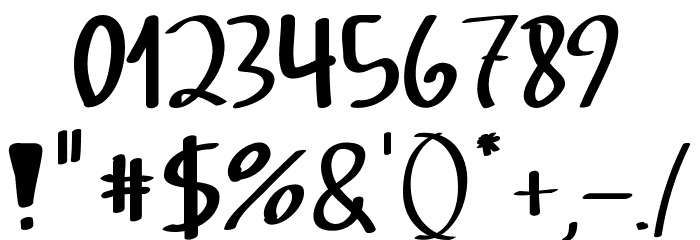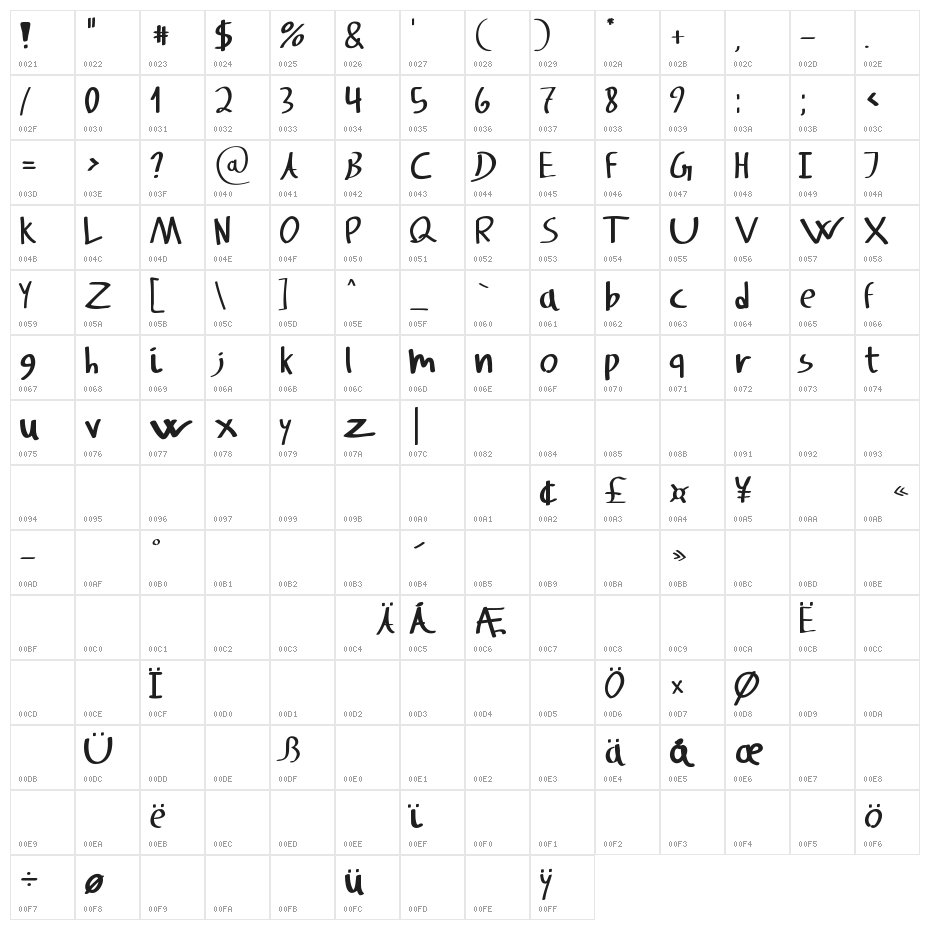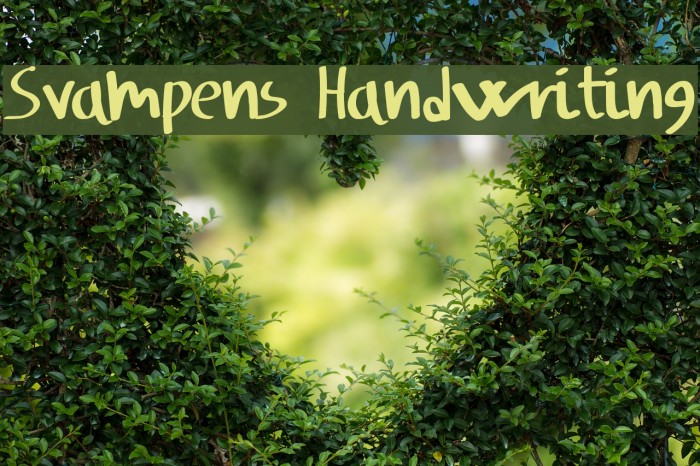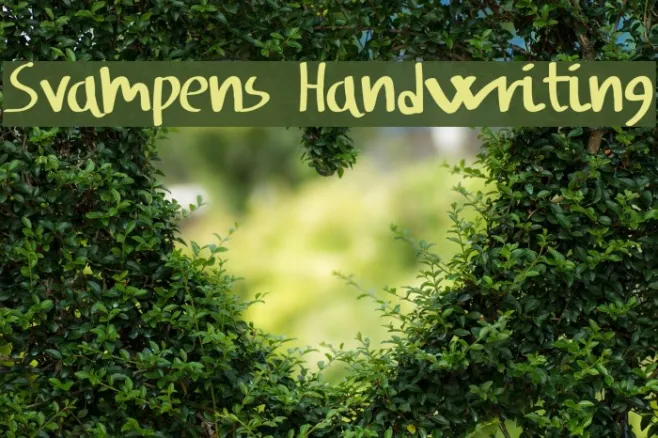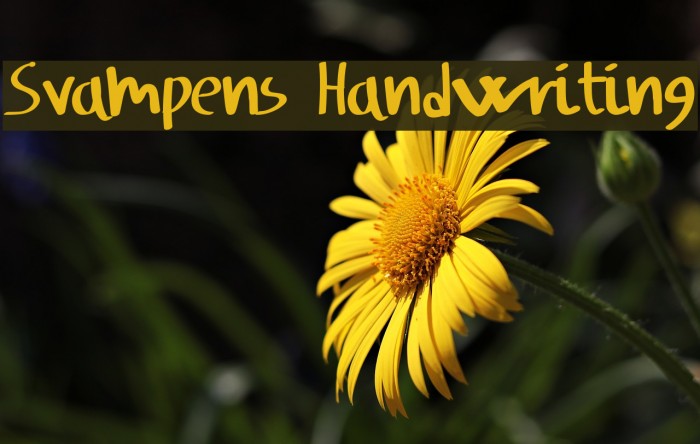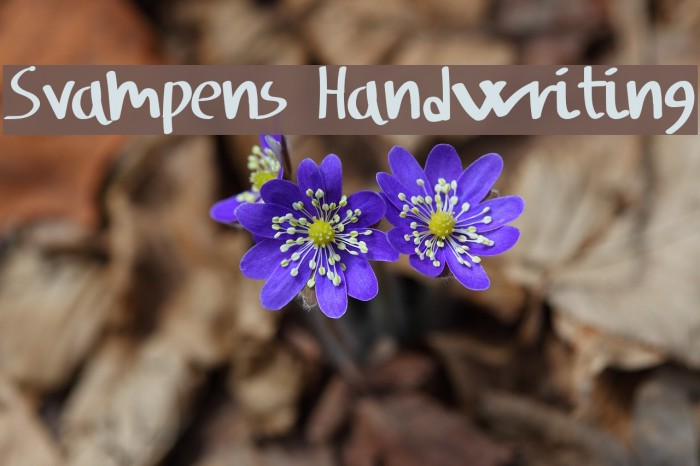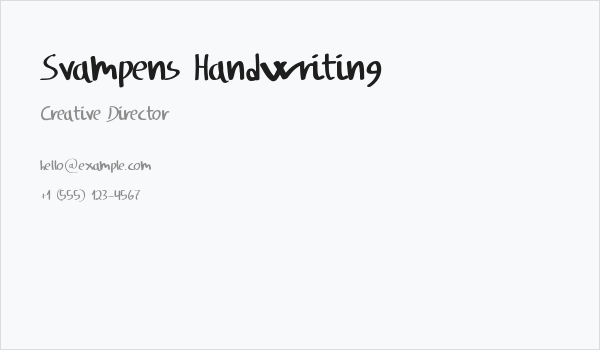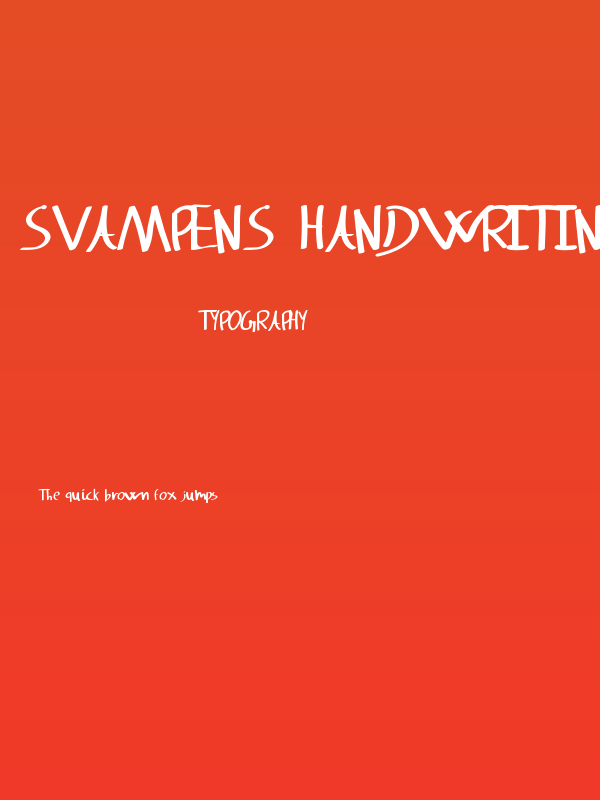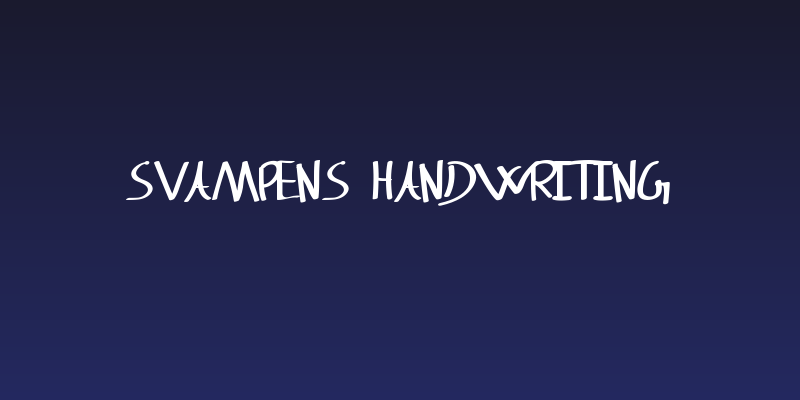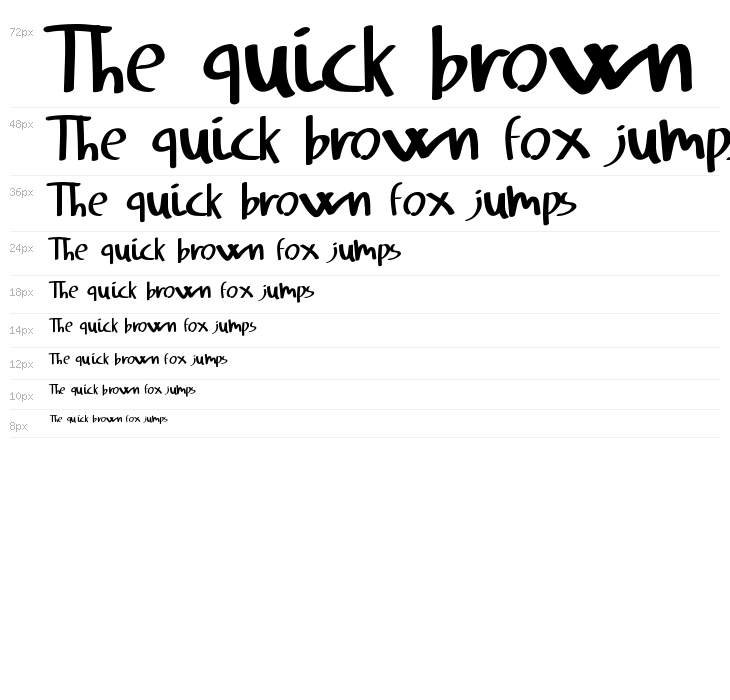
Svampens Handwriting Font
Svampens Handwriting Description
This font exudes a playful and casual handwritten style, characterized by its bold and expressive strokes. The letters are slightly irregular, adding a personal and informal touch. The uppercase letters are tall and slightly narrow, while the lowercase letters maintain a consistent flow with rounded edges. The numbers and special characters follow the same lively and dynamic style, making them easily recognizable and visually appealing. This font is perfect for projects that require a friendly and approachable aesthetic, such as children's books, greeting cards, or creative branding.
| Proposed Projects | Ideal for children's books, greeting cards, creative branding, and informal invitations. |